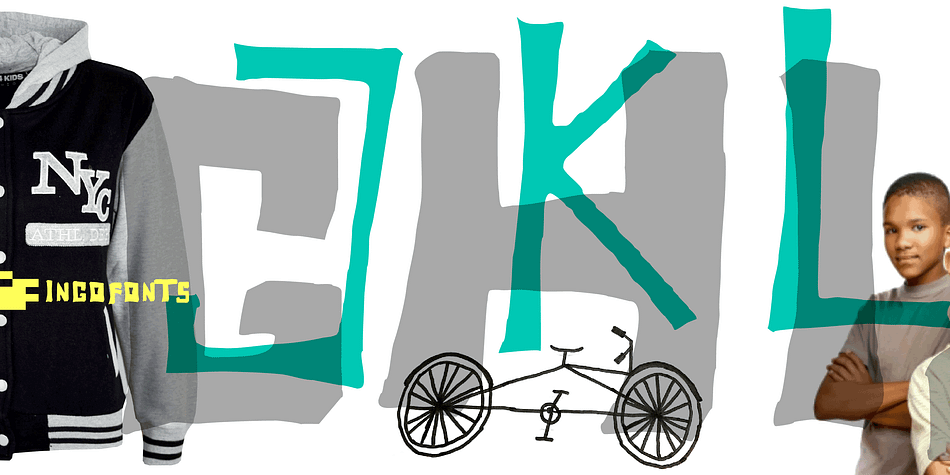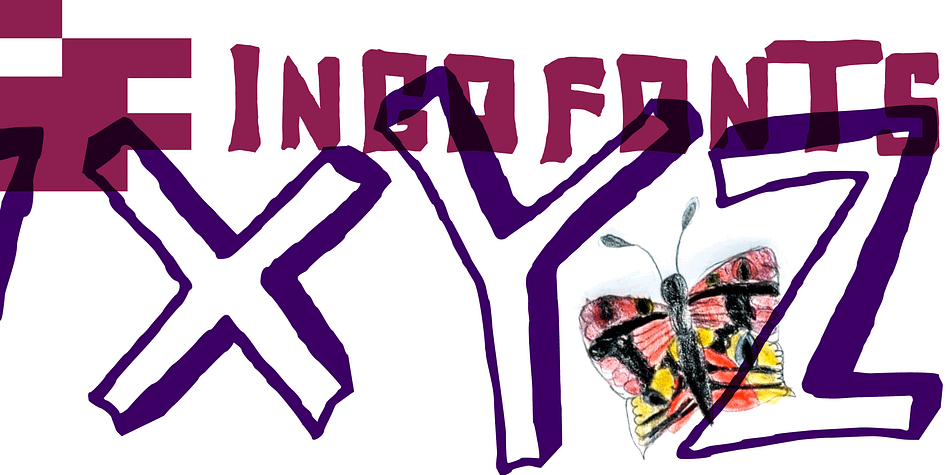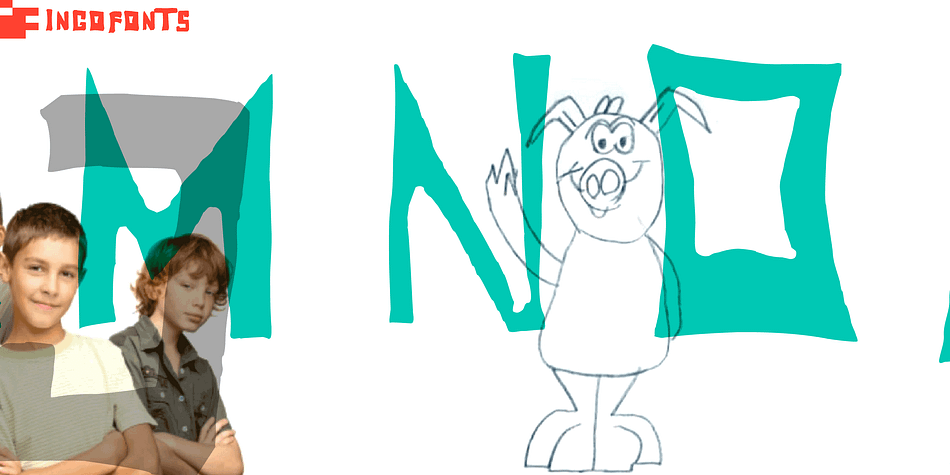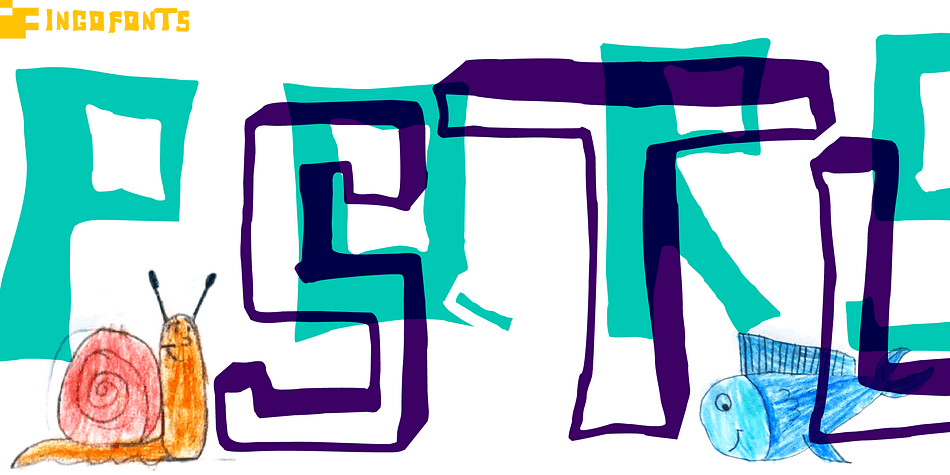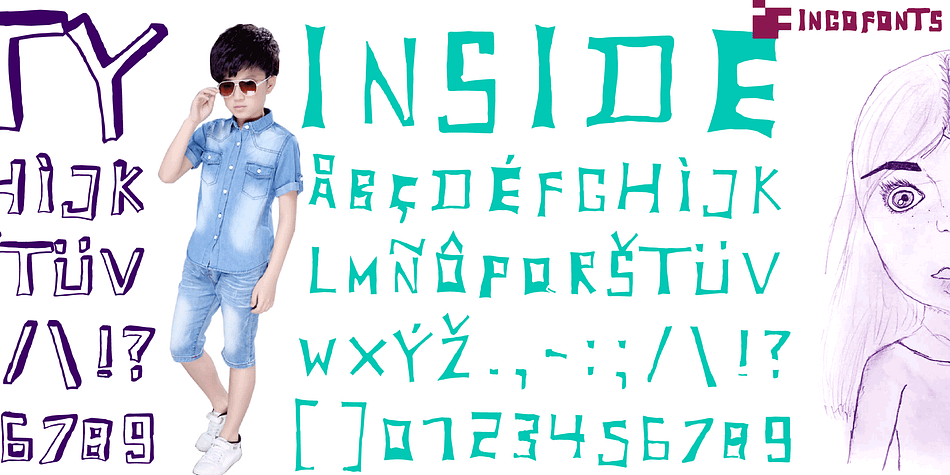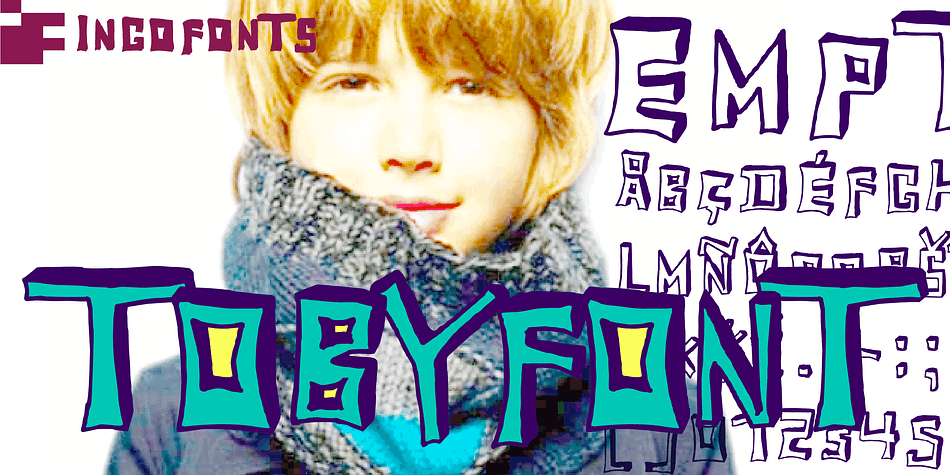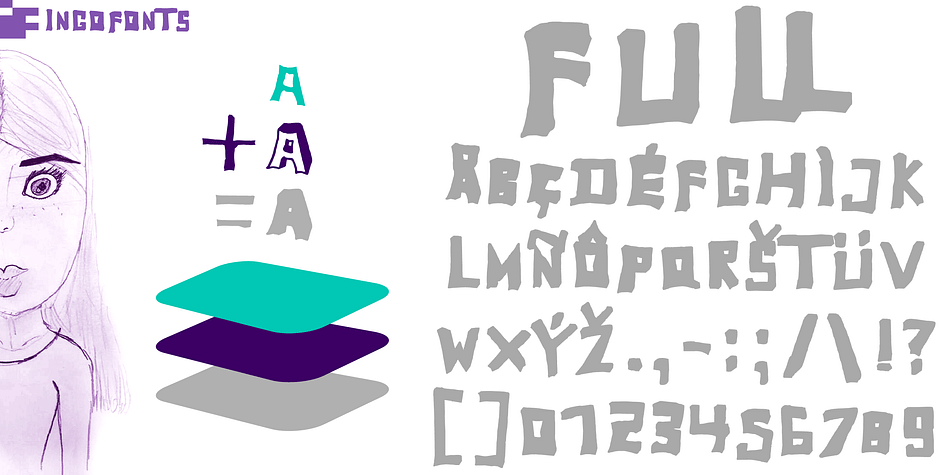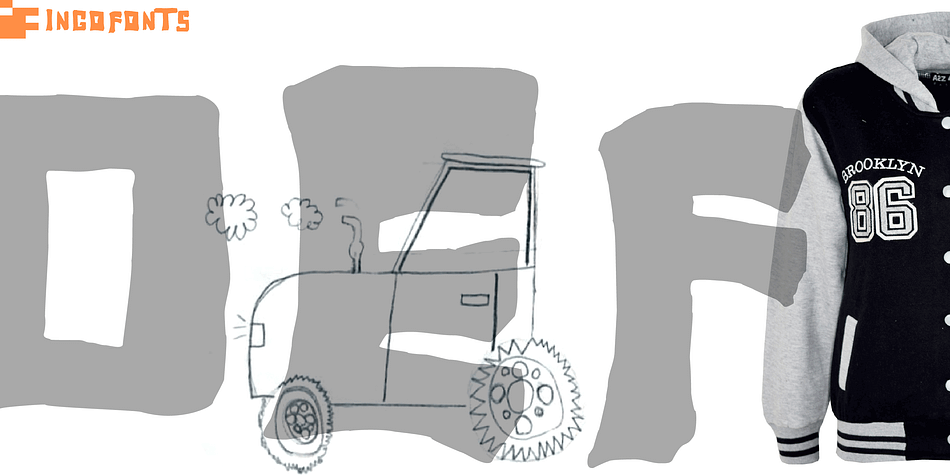
Designed by Ingo Zimmerman, TobyFont is a hand display and kids font family. This typeface has three styles and was published by ingoFonts.
A playful handwriting of a child
Complementary to the Outline-Shadow-Version TobyFont Empty, the variations TobyFont Inside and TobyFont Full are also available. ”Empty“ is, so to speak, the frame of the typeface as “Inside” is the filling, and “Full” is the sum of both.
All three versions have the exact same body size so that they can be placed over one another congruently. In this way the effect of a font in two or three colors can be attained.